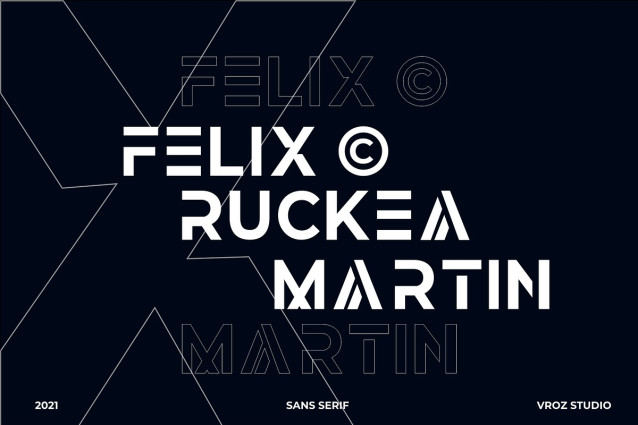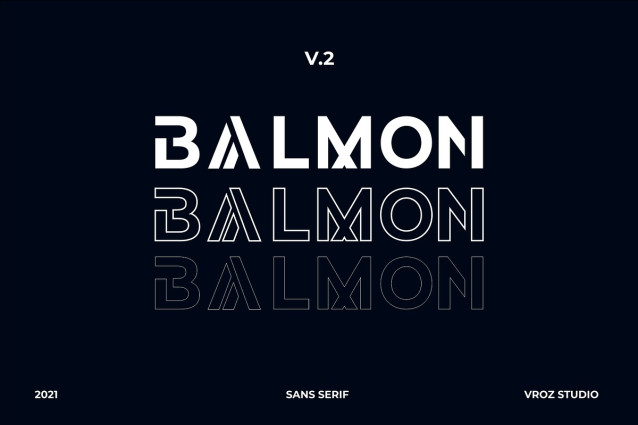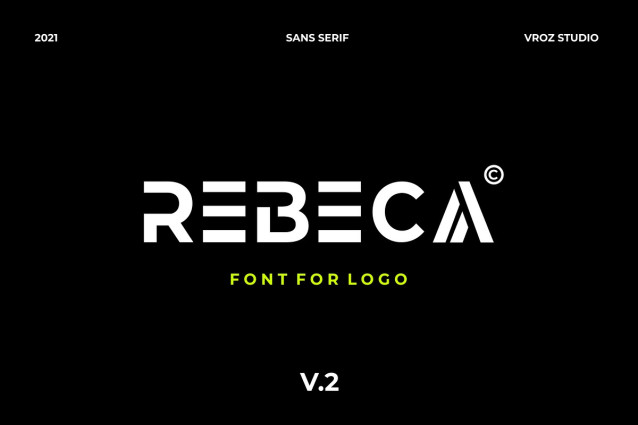
Rebeca Sans Font
Rebeca Sans Font is a new font for design of minimalistic font for logos. The font is suitable for creating word marks, titles, taglines. This font is perfect for those of you who like a minimalist and clean design